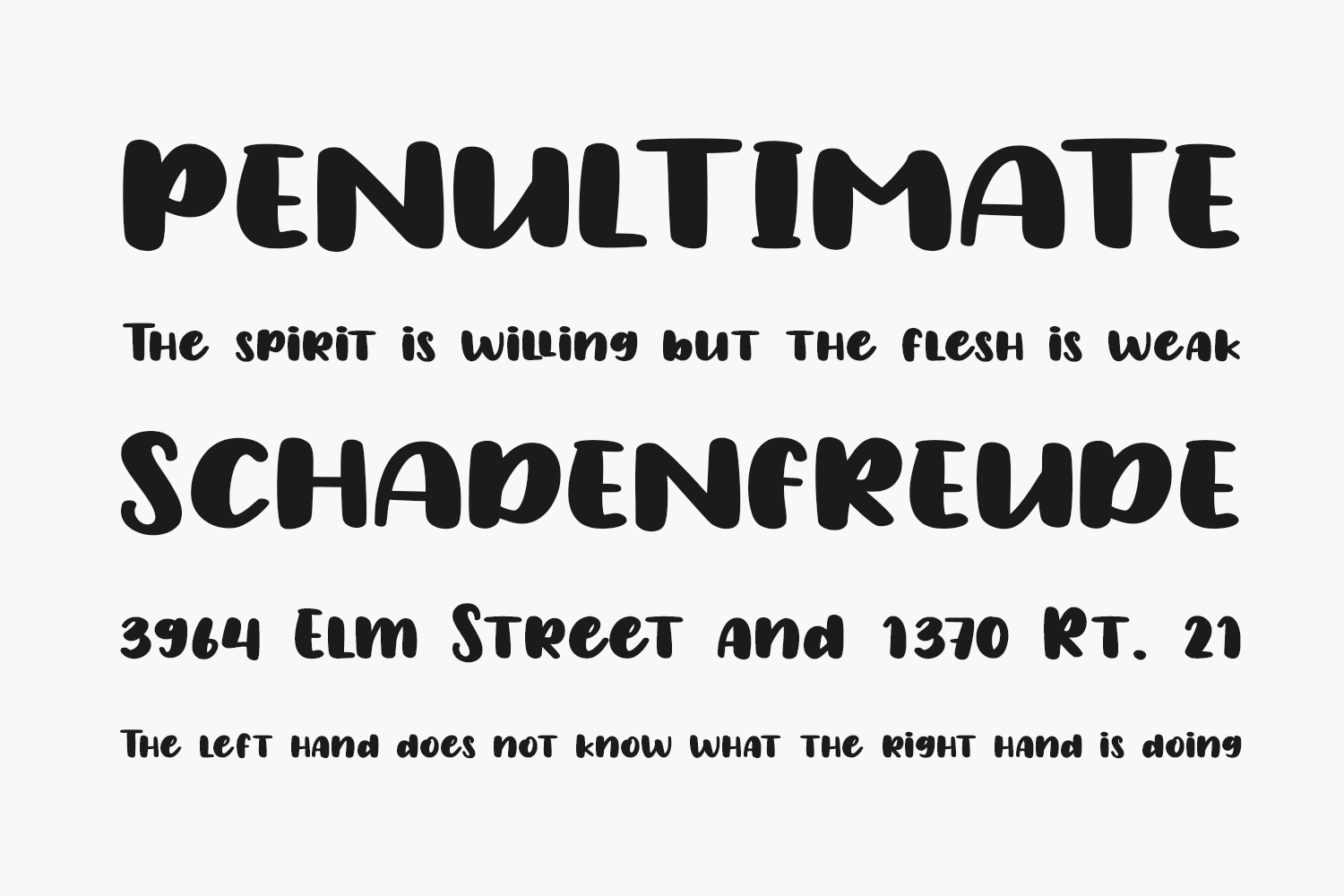
Scott Room Free Font is an incredibly cute and playful display font that feels authentic and jolly. This font is perfect for children themed designs, especially when combined with bright colors. Scott Room Free Font was designed by Bearytype and is free for personal use only. Please purchase the full version for commercial use.